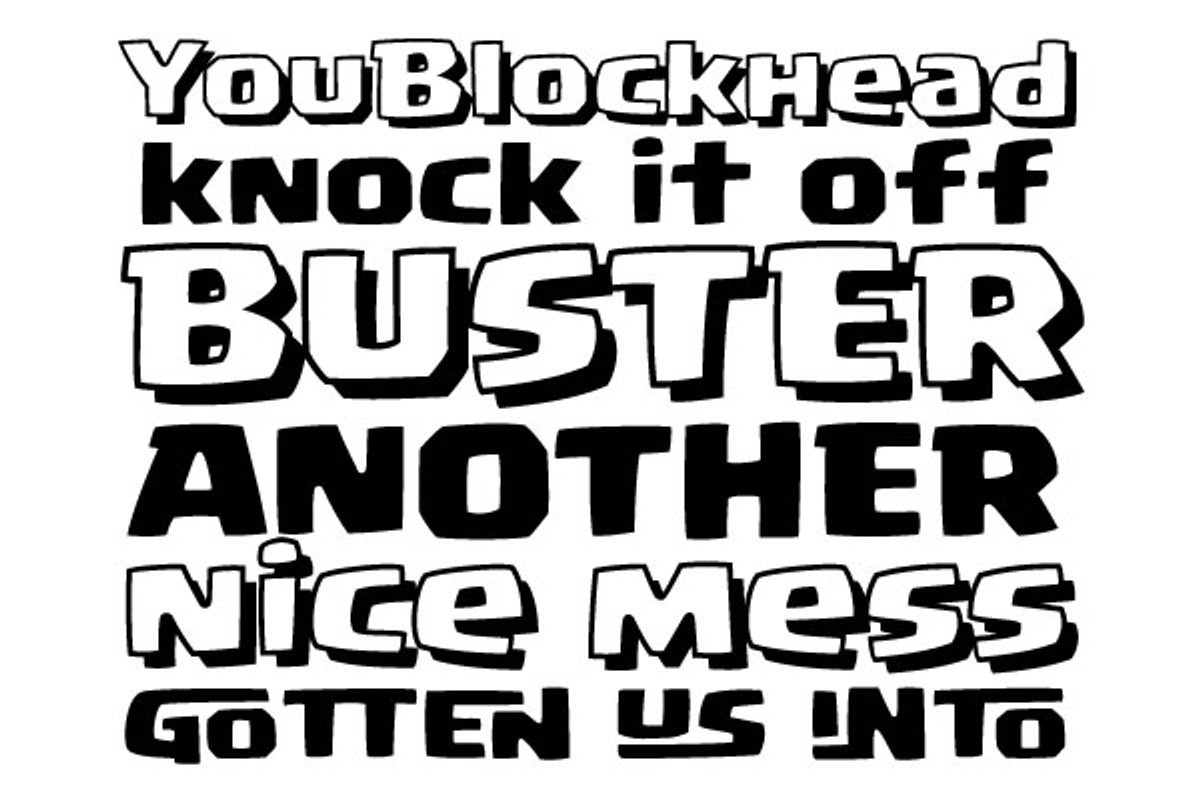
You Blockhead - a heavy comic font
You Blockhead - a heavy comic font by Comicraft Fonts is a font selected for branding, posters, packaging, typography.
Why You Blockhead - a heavy comic font is worth a look
You Blockhead - a heavy comic font by Comicraft Fonts fits naturally into Branding, posters, packaging, typography.